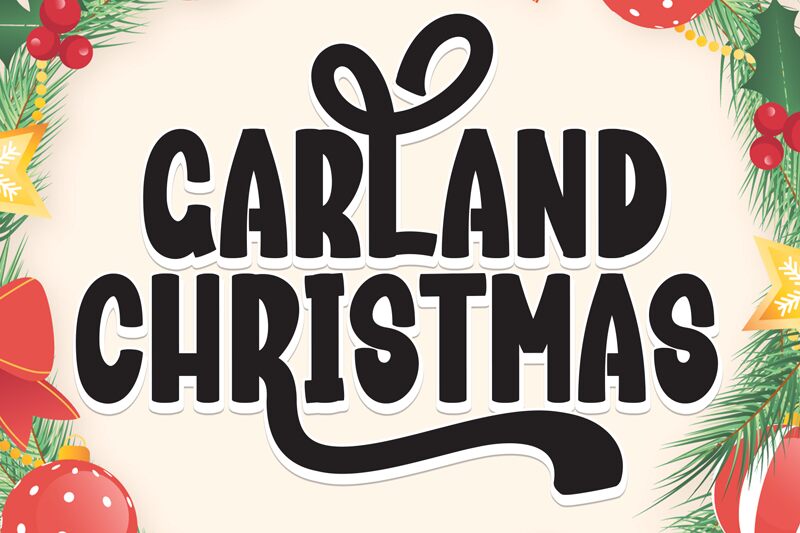
Garland Christmas font by Scratchones is a free font that embodies a festive and whimsical spirit, making it ideal for holiday and Christmas-themed designs. With its decorative elements, the font brings a vibrant and bold impression, combining a playful vibe with a touch of casual elegance. Its design marries retro-inspired flair with modern sensibilities, perfect for contemporary holiday applications.
This font is a great choice for greeting cards, holiday invitations, event posters, banners, social media posts, festive packaging, and more. It can also enhance the look of websites, blogs, merchandise, and advertising materials with a friendly and cheerful touch.